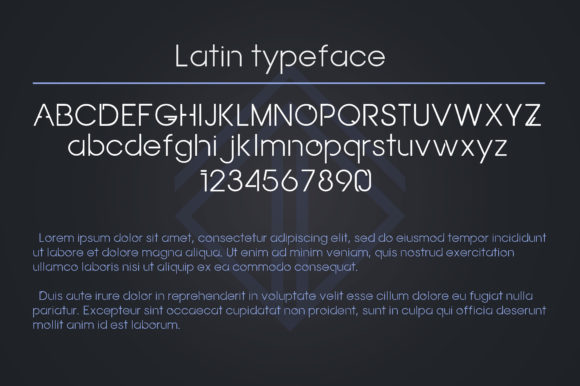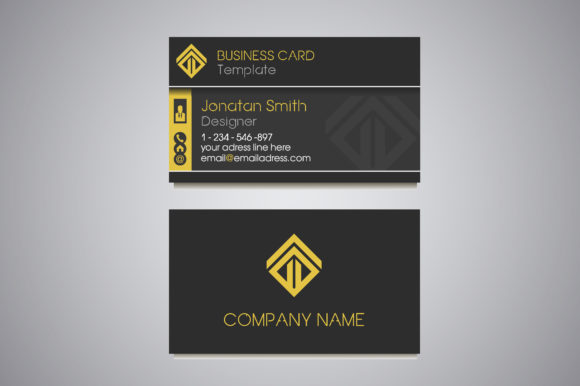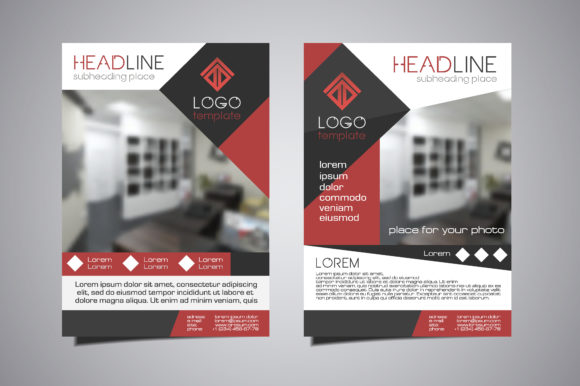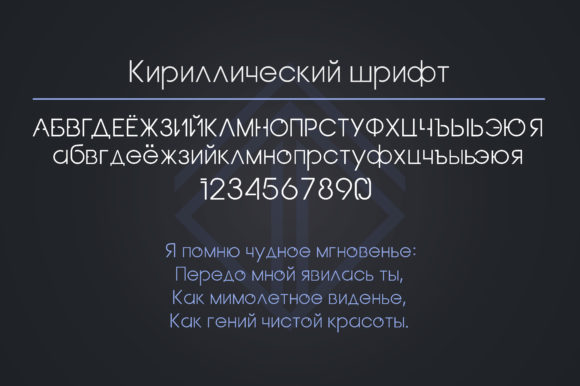
Fractal Font: Elevate Your Designs with a Futuristic Twist
In the realm of typography, fonts play a pivotal role in shaping the visual identity of a project. Whether you’re a designer, craftsperson, or simply a creative enthusiast, the right font can make all the difference. Introducing Fractal, a futuristic minimal sans serif font that’s poised to revolutionize your creative endeavors. With its sleek lines, modern aesthetic, and versatility, Fractal is the perfect addition to your typographic arsenal.
The Essence of Fractal Font
Fractal is more than just a font – it’s a statement. Its minimalist sans serif design exudes a sense of futurism, perfect for projects that demand a cutting-edge look. The font’s clean lines, subtle curves, and precision-crafted details create a visually stunning effect that’s sure to captivate your audience. Whether you’re working on a branding project, website design, or crafting a stunning visual narrative, Fractal’s unique charm will undoubtedly make your work stand out.
Endless Possibilities with Fractal
One of the most significant advantages of Fractal is its incredible versatility. This font can effortlessly adapt to a wide range of projects, from:
- Digital designs: websites, mobile apps, and social media graphics
- Print materials: brochures, posters, business cards, and more
- Branding and advertising: logos, billboards, and marketing campaigns
- Crafting and DIY projects: custom signs, labels, and decorative items
Its chameleon-like ability to blend in and stand out makes Fractal an indispensable asset for designers and crafters alike.
Why Choose Fractal Font?
So, what sets Fractal apart from other fonts? Here are just a few compelling reasons to incorporate it into your creative workflow:
- Modern aesthetic: Fractal’s futuristic design injects a fresh, modern vibe into your projects.
- Legibility: The font’s clear, concise lines ensure optimal readability, even at smaller sizes.
- Flexibility: Use Fractal for headlines, body text, or any other typographic need.
- Unique character: The font’s distinct personality adds an extra layer of depth to your designs.
Tips for Using Fractal Font Effectively
To get the most out of Fractal, consider the following expert tips:
- Mix and match: Combine Fractal with other fonts to create visually appealing contrasts.
- Experiment with sizes: Play with font sizes to create hierarchy and add emphasis.
- Colors and textures: Pair Fractal with bold colors and textures to add depth and interest.
- Don’t overdo it: Balance Fractal’s futuristic look with simpler design elements to avoid visual overload.
In conclusion, Fractal Font is a game-changing addition to any designer’s or craftsperson’s toolkit. Its futuristic minimal sans serif design, versatility, and unique character make it the perfect choice for a wide range of creative projects. So why wait? Unlock the full potential of Fractal and take your designs to the next level!